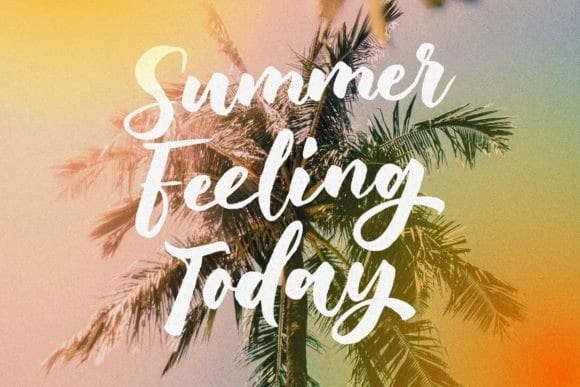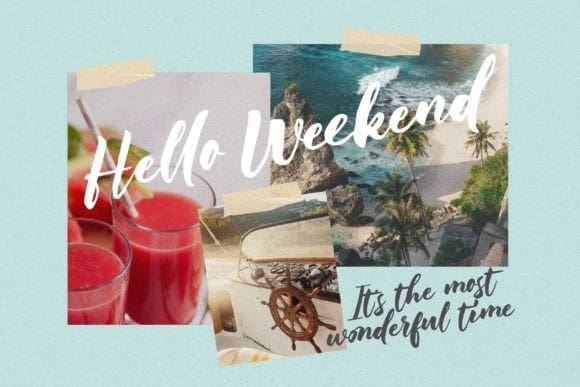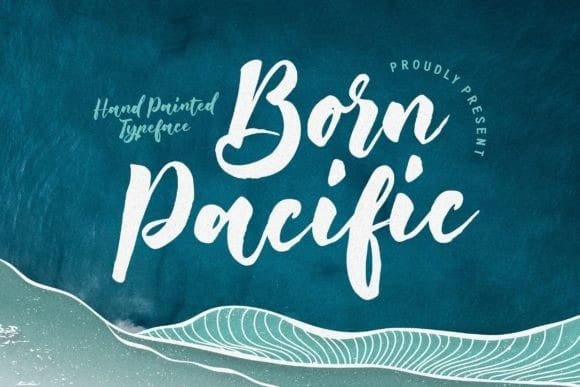
Born Pacific Font
Born Pacific Font is perfect for branding, photography, invitations, watermarks, advertisements, product designs, stationery, wedding designs, labels, product packaging, special events or anything that requires handwritten content.